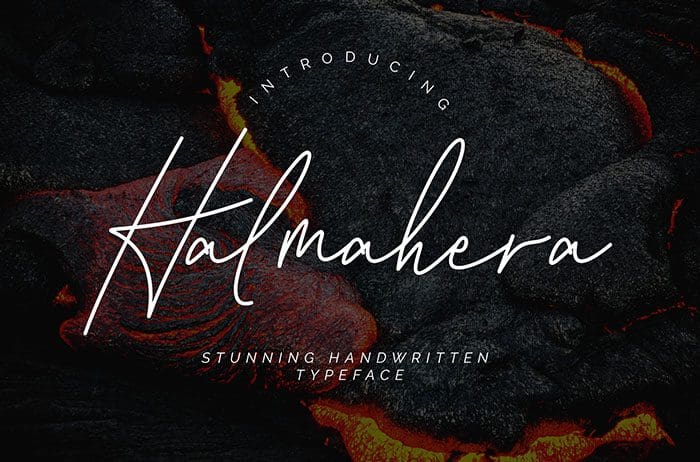
Halmahera Handwritten Font
Halmahera is a fresh handwritten font with a signature feel that makes. This font looks natural, modern, and perfect for any awesome projects. Thanks to Creatype Studio for sharing this font! Take a look at this portfolio for more of his stunning fonts.